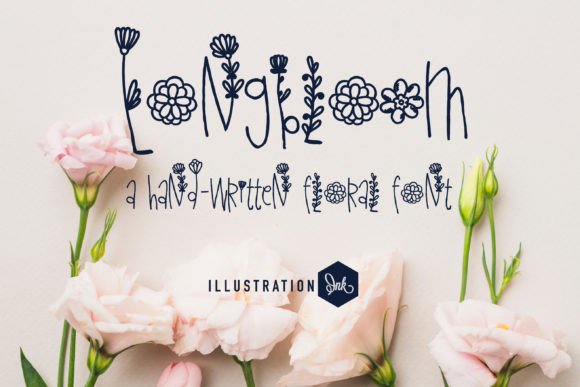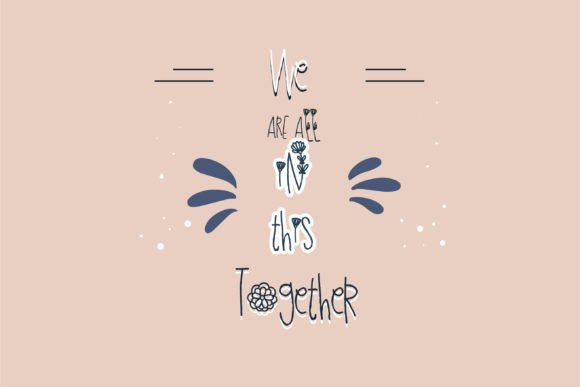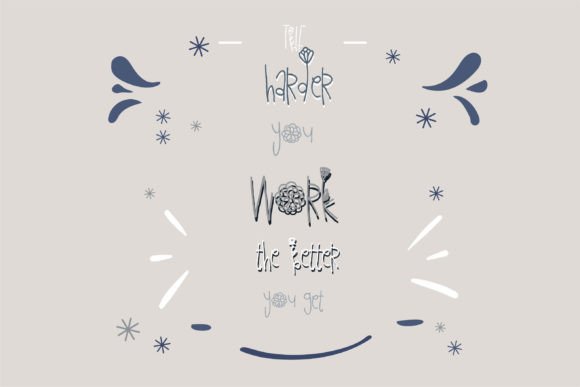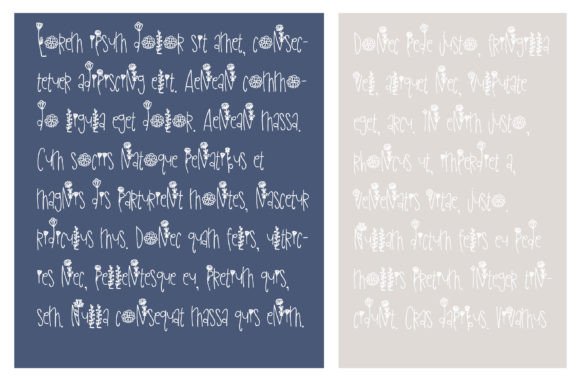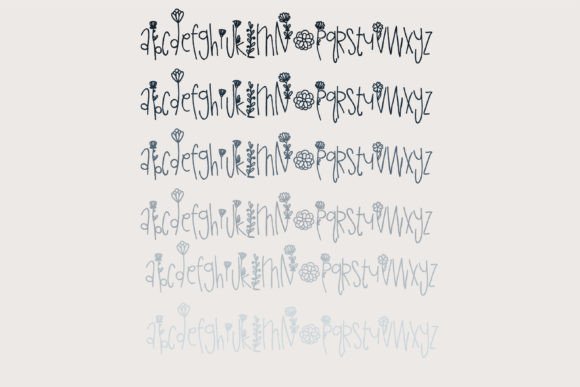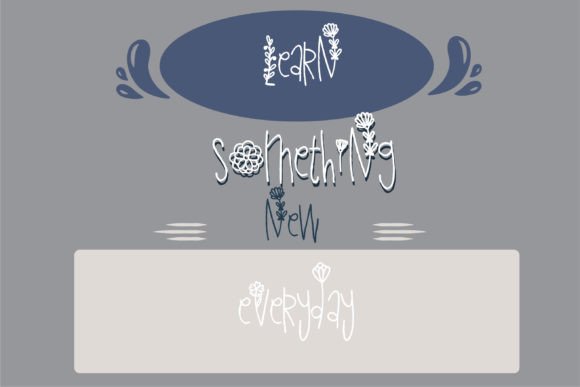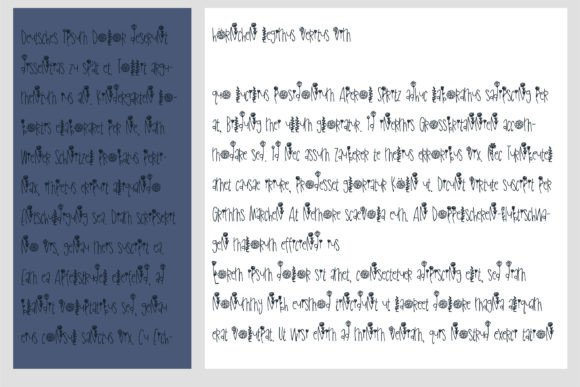
Longbloom Font
About Longbloom Font
Longbloom is a delightful and charming handwritten font that adds a playful touch to your projects with its adorable blooms and flourishes. This font goes beyond conventional lettering, infusing a sense of whimsy and creativity into your designs.
The blooms and flourishes that adorn Longbloom give it a unique and eye-catching appearance. Each letter becomes a canvas for playful and decorative elements, making this font perfect for projects that require a touch of sweetness and creativity.
The handwritten style of Longbloom contributes to its friendly and approachable character. Handwritten fonts are known for their authenticity and warmth, creating a personal connection with the audience. Longbloom takes this a step further by incorporating charming details that make it stand out.
Longbloom’s versatility makes it suitable for a variety of design applications. Whether you’re working on invitations, greeting cards, posters, branding, or any other creative project, Longbloom can add a dose of whimsical charm to your text.
The blooms and flourishes in Longbloom make it not just a font but a decorative element in its own right. This decorative quality is valuable for making your designs visually appealing and memorable. Longbloom can be the perfect choice when you want your text to be more than just words; you want it to be an integral part of the design.
Adding Longbloom to your projects is an opportunity to infuse creativity and playfulness into your designs. The blooms and flourishes make each letter an artistic expression, creating a joyful and engaging visual experience for your audience.
In summary, Longbloom is a cute and charming handwritten font that brings a playful and decorative touch to your designs. Let Longbloom be the blooming star of your creative projects, and enjoy the delightful and whimsical atmosphere it adds to your text.